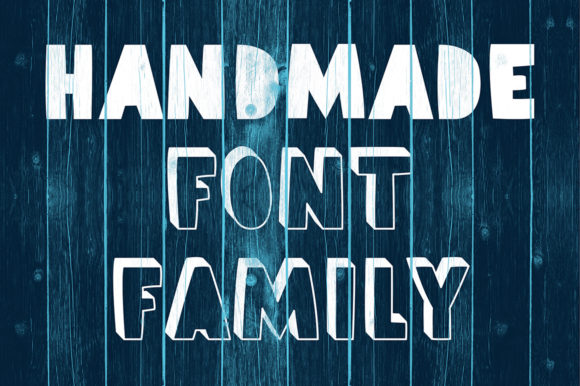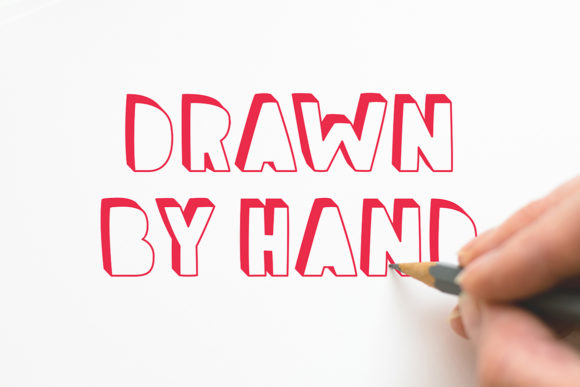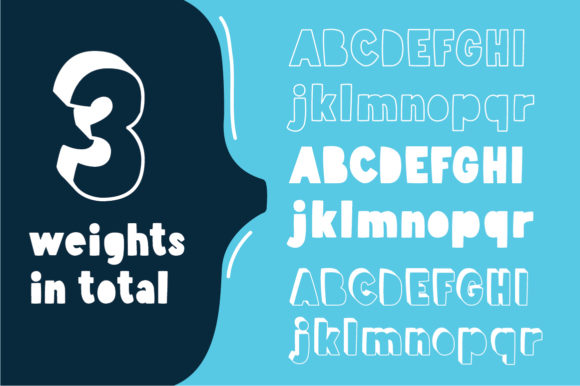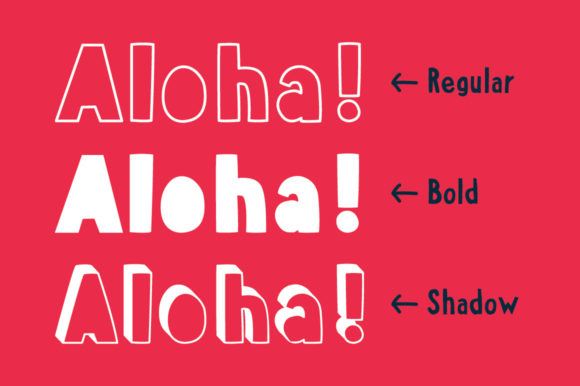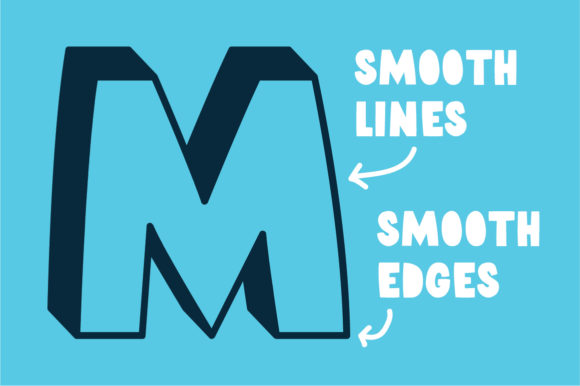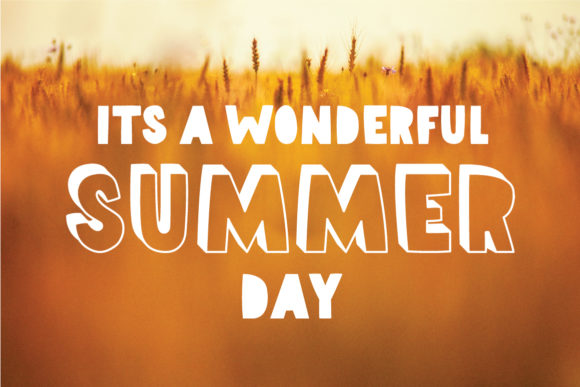
Aloha Font: The Perfect Addition to Your Creative Projects
Are you looking for a font that can add a touch of friendliness and versatility to your creative projects? Look no further than the Aloha font. This bold and chunky lettered display font is perfect for designers and crafters who want to make their ideas stand out. In this article, we’ll take a closer look at the Aloha font, its features, and how you can use it to elevate your creative projects.
What is Aloha Font?
Aloha is a bold and chunky lettered display font that is designed to make a statement. Its friendly feel makes it incredibly versatile, fitting a wide range of contexts. Whether you’re working on a branding project, a craft project, or a digital design, the Aloha font is sure to add a touch of personality and whimsy.
Features of Aloha Font
The Aloha font has several features that make it a standout choice for designers and crafters. Some of its key features include:
- Bold and Chunky Letters: The Aloha font features bold and chunky letters that are sure to grab attention.
- Friendly Feel: The font has a friendly feel that makes it perfect for projects that require a personal touch.
- Versatile: The Aloha font is incredibly versatile and can be used in a wide range of contexts, from branding and advertising to crafting and digital design.
How to Use Aloha Font in Your Creative Projects
The Aloha font can be used in a variety of creative projects, including:
- Branding and Advertising: Use the Aloha font to create eye-catching logos, advertisements, and marketing materials that are sure to grab attention.
- Crafting and DIY Projects: Add a personal touch to your crafting and DIY projects, such as handmade cards, gift tags, and scrapbooking pages.
- Digital Design: Use the Aloha font in your digital designs, such as social media graphics, blog posts, and website headers.
Tips for Using Aloha Font
Here are a few tips for using the Aloha font in your creative projects:
- Use it as a Headline Font: The Aloha font is perfect for use as a headline font, where its bold and chunky letters can really make a statement.
- Pair it with Other Fonts: Experiment with pairing the Aloha font with other fonts to create a unique and interesting look.
- Use it in Combination with Images: Use the Aloha font in combination with images to add a touch of personality and whimsy to your designs.
In conclusion, the Aloha font is a versatile and eye-catching font that is perfect for designers and crafters who want to add a touch of friendliness and personality to their creative projects. Its bold and chunky letters, friendly feel, and versatility make it a great choice for a wide range of contexts. Whether you’re working on a branding project, a craft project, or a digital design, the Aloha font is sure to make your ideas stand out.